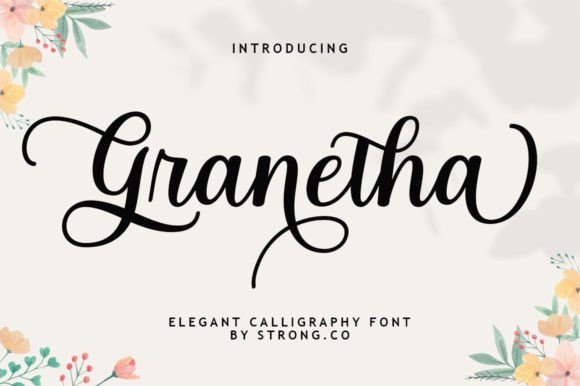
A Touch of Whimsy: The Allure of Granetha Font
As you sit with your cup of coffee, surrounded by scattered papers and design tools, the perfect font can suddenly strike inspiration. It’s the moment when your entire project starts to take shape, and the words begin to flow effortlessly onto the page. For designers, this moment is pure magic, and it’s exactly what the Granetha Font aims to evoke.
With its delicate, handwritten style, Granetha Font captures the essence of late summer days – warm, carefree, and full of life. This enchanting font is perfect for adding a touch of whimsy to invitations, greeting cards, quotes, and more. Whether you’re a seasoned designer or a creative enthusiast, Granetha Font is an invaluable addition to your toolkit, offering a unique and nostalgic charm that’s sure to leave a lasting impression.
Embracing the beauty of Granetha Font is like giving your designs a warm hug – it adds a special, personal touch that makes your work truly unforgettable. So why not give it a try and see how Granetha Font can bring your creative vision to life?
Granetha Font Key Features
- Font Family: Granetha
- Unique Characteristics: Features a unique blend of modern and vintage elements, with intricate details and subtle texture, making it perfect for creating eye-catching designs.
Granetha Font Review
Granetha Font is a beautiful, elegant script font that can elevate any design project to the next level. The ✨ delicate curves and flourishes ✨ make it perfect for creating a sophisticated, high-end look.
- ✨ Elegant and sophisticated design
- ✨ Perfect for creating a high-end look
- ✨ Suitable for a wide range of design projects, from invitations to branding
- ⚠️ Limited character set, which may not be suitable for projects that require a wide range of characters
- ⚠️ Not ideal for projects that require bold or condensed font styles
- ⚠️ May require additional formatting to achieve the desired look
Granetha Font is a beautiful and elegant script font that is perfect for creating a sophisticated look. While it may have some limitations, it is still a great choice for designers who want to add a touch of elegance to their projects. With a little creativity and formatting, Granetha Font can be a valuable addition to any design library.
Tips for Getting the Most Out of Granetha Font
For optimal results, use Granetha Font in headings and titles to add a touch of elegance and sophistication to your designs. Experiment with different font sizes and colors to create visual hierarchy and emphasis.
Granetha Font is ideal for:
- Luxury branding and packaging
- High-end event promotions
Alternatives to Granetha Font for Designers
Playfair Display is an elegant and luxurious serif font that is perfect for creating a sense of sophistication and refinement. It is ideal for use in titles, headings, and other design elements where a touch of elegance is desired.
Playfair Display is similar to Granetha Font in its luxurious feel, but it has a more classic and traditional look. While Granetha Font has a more modern and sleek appearance, Playfair Display has a more vintage and ornate feel.
Merriweather is a classic serif font that is perfect for creating a sense of tradition and timelessness. It is ideal for use in body text, headings, and other design elements where a sense of stability and reliability is desired.
Merriweather is similar to Granetha Font in its classic feel, but it has a more straightforward and simple appearance. While Granetha Font has a more modern and sleek look, Merriweather has a more traditional and conservative feel.
Didot is a luxurious serif font that is perfect for creating a sense of high-end sophistication and refinement. It is ideal for use in titles, headings, and other design elements where a touch of elegance and glamour is desired.